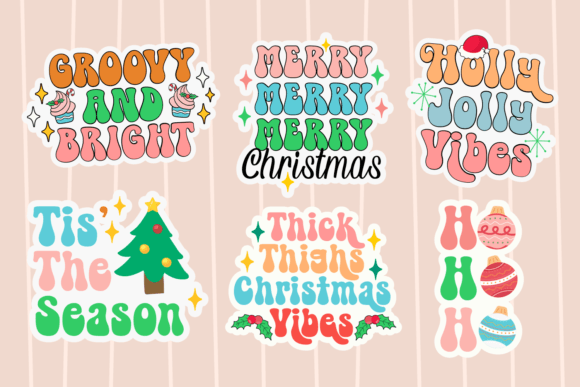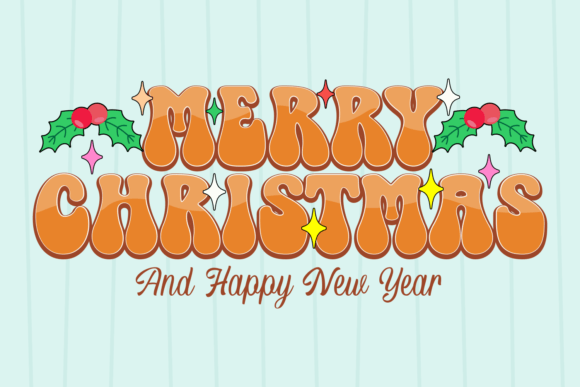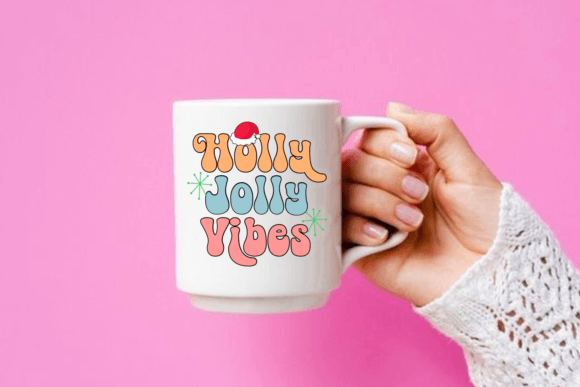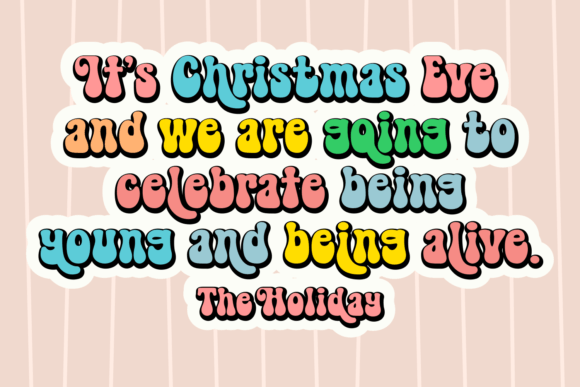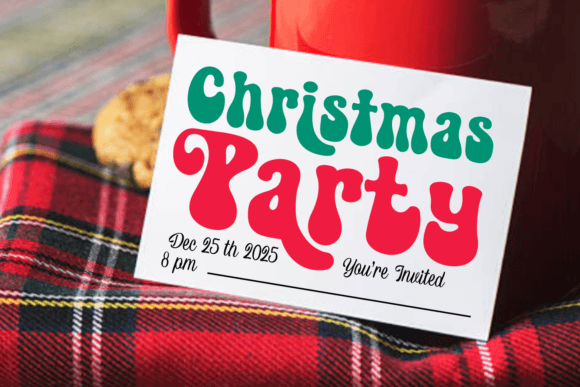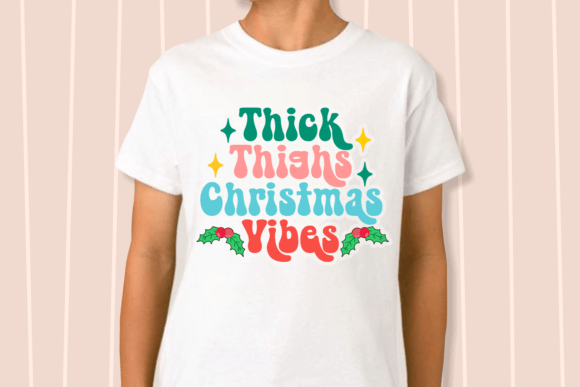
Introduction to Retro Cookies Font
Retro Cookies font is a festive and groovy handwritten typeface that captures the joy of the holiday season.
With its bubbly letters and retro-inspired charm, this font adds a delightful and playful touch to your Christmas designs Use it for holiday cards, gift tags, or any project that needs a dash of nostalgic cheer.
Key Features of Retro Cookies Font
Why Choose Retro Cookies Font?